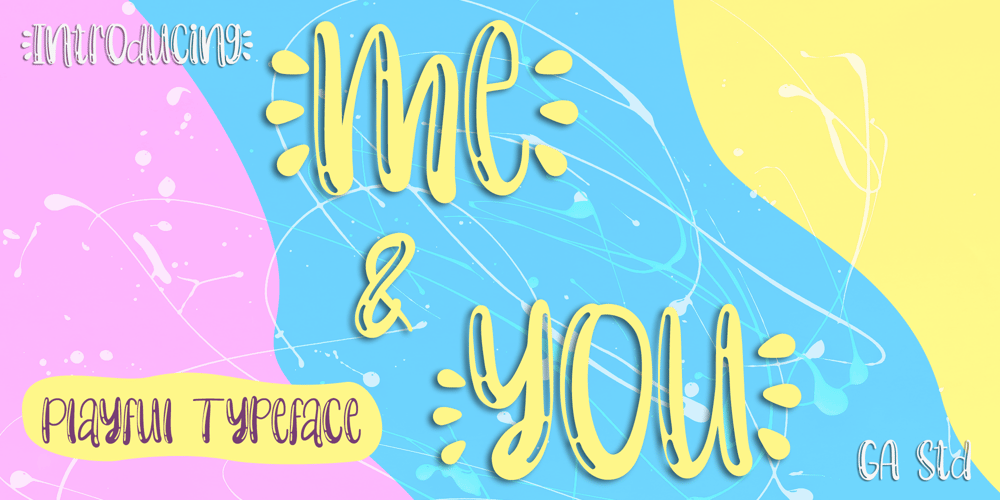
Me & You Font Family was designed by Ardi Parwito and published by Green Adventure Studio. Me & You contains 1 styles and family package options. Me & You is a fun and playful display font. Masterfully designed to become a true favorite, this font has the potential to bring each of your creative ideas to the highest level!